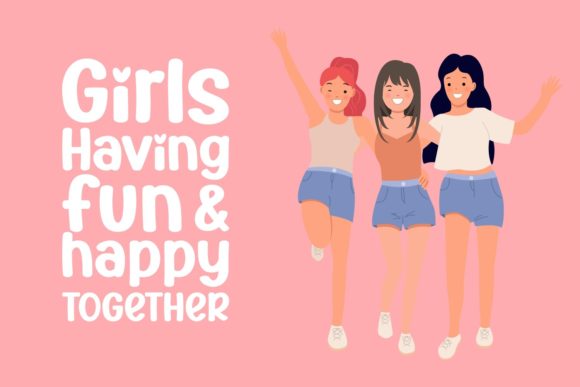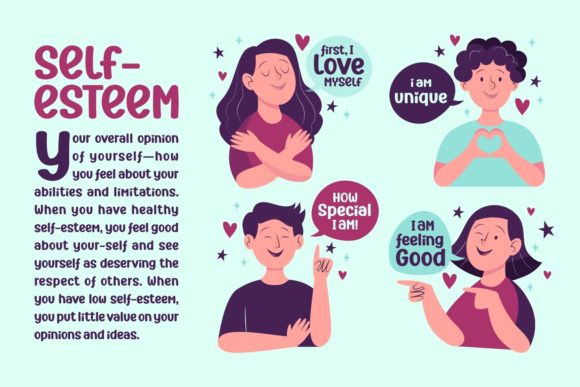
Big Sister Font
db-ku.com - Script & Handwritten -- The Big Sister handwritten font is a bold handwritten font, perfect for adding a heartwarming touch to any craft or design project. The font is compatible with cutting machines such as Cricut and Silhouette.